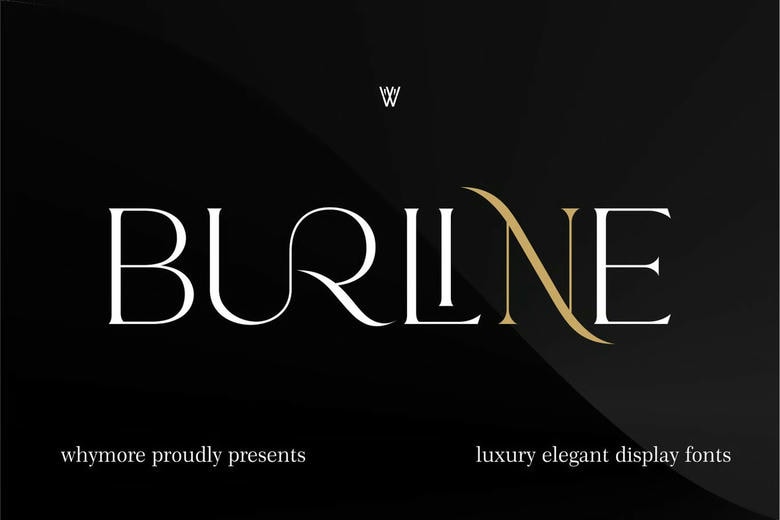
Burline Font
Burline brings elegance and luxury to your brand. Its high-contrast strokes, smooth curves, and stylish letter shapes give it a look that feels both modern and timeless. This font is ideal for designers aiming to create bold, high-quality visuals.
Its distinct letter shapes and fine artistic touches help it stand out in logos, editorials, and upscale branding work. Burline looks great in both digital and print projects, adding a polished and professional touch to your designs.
Burline Serif Font